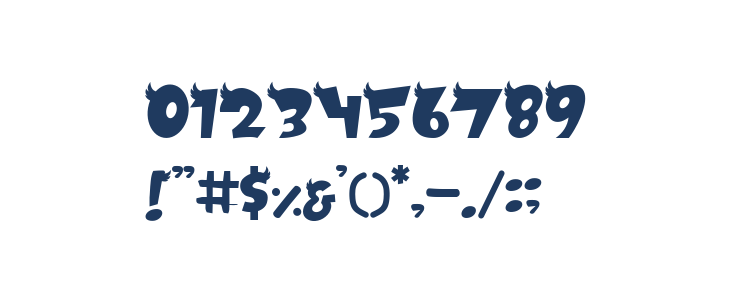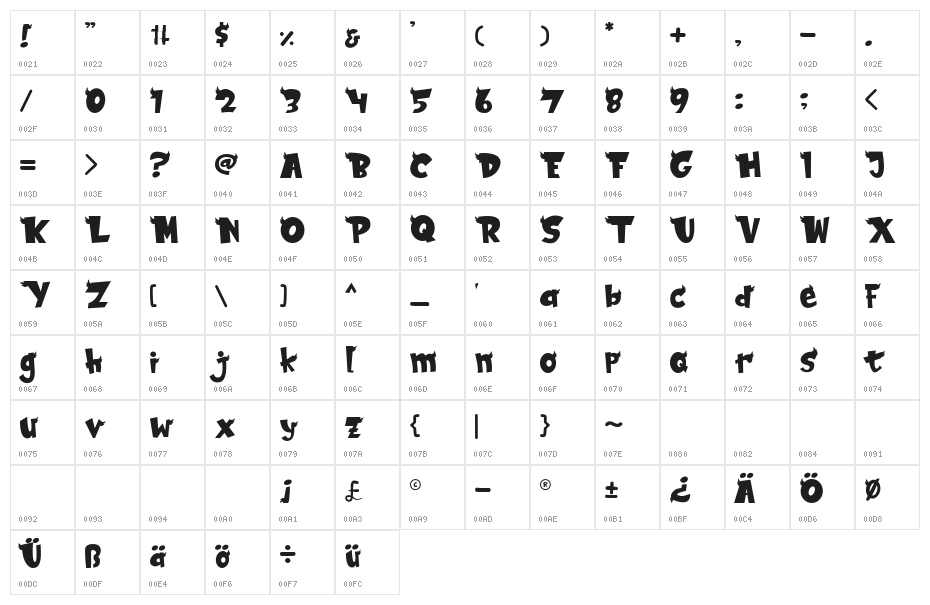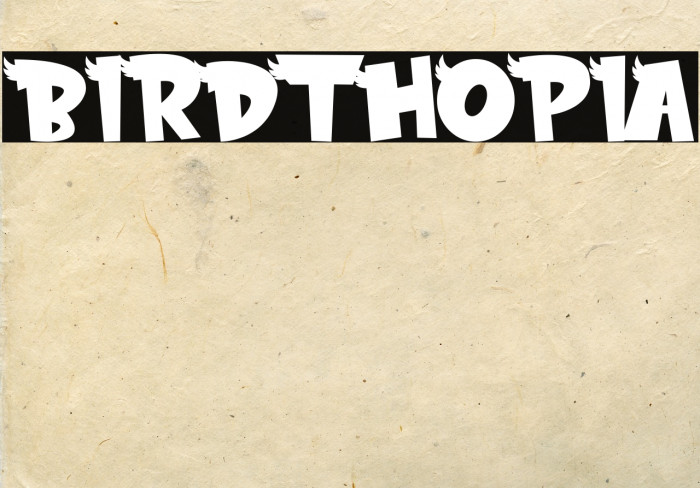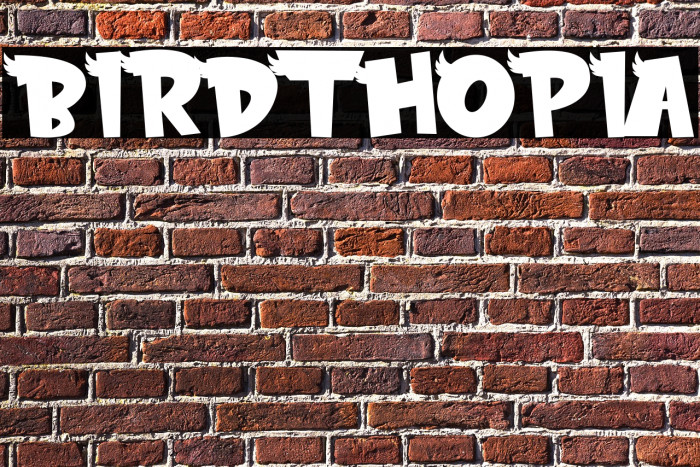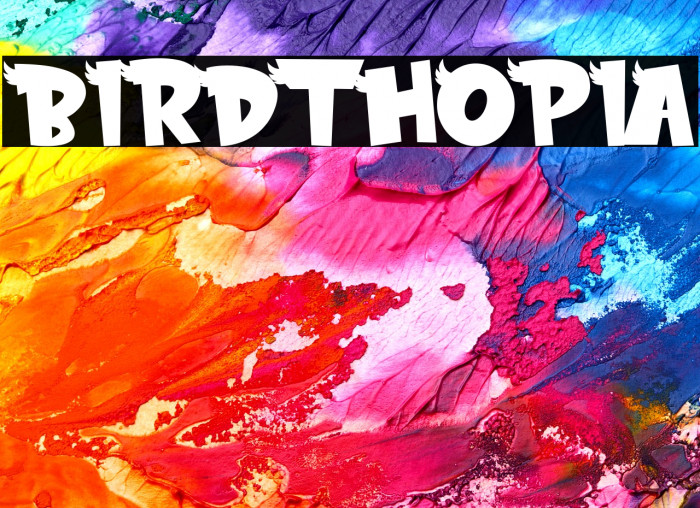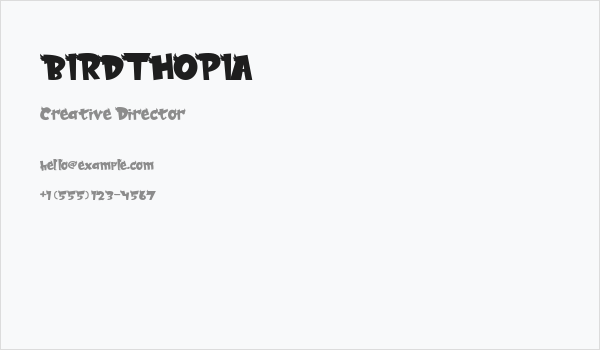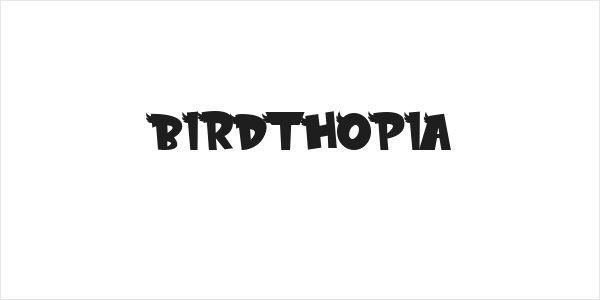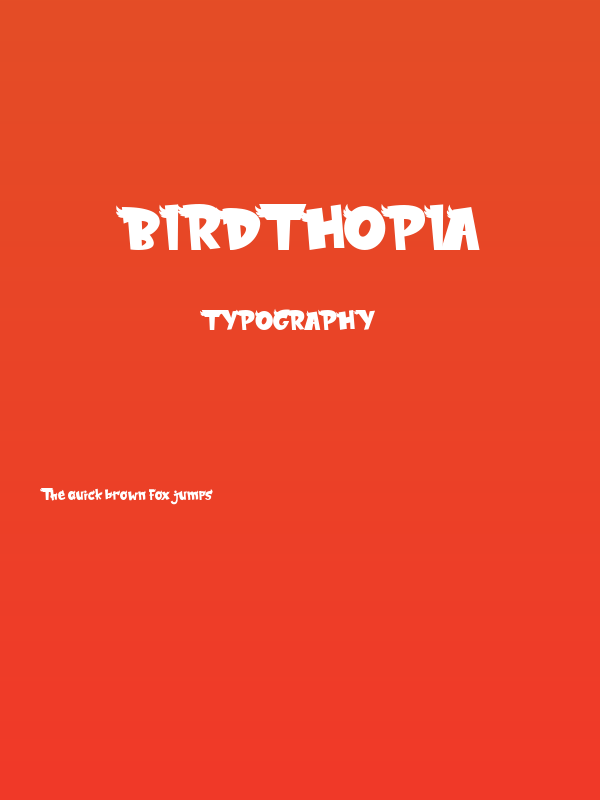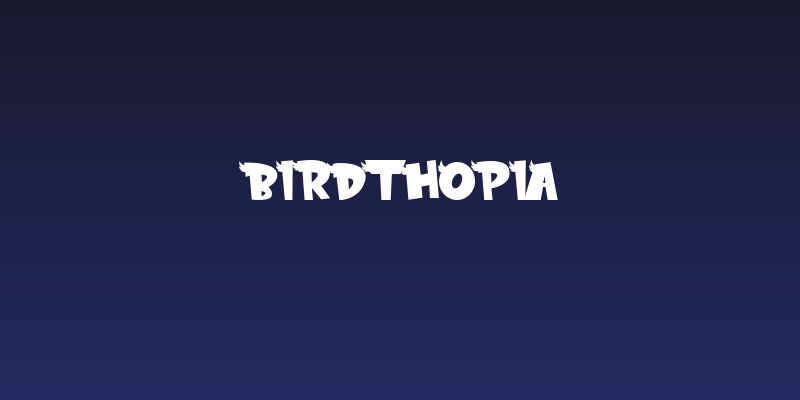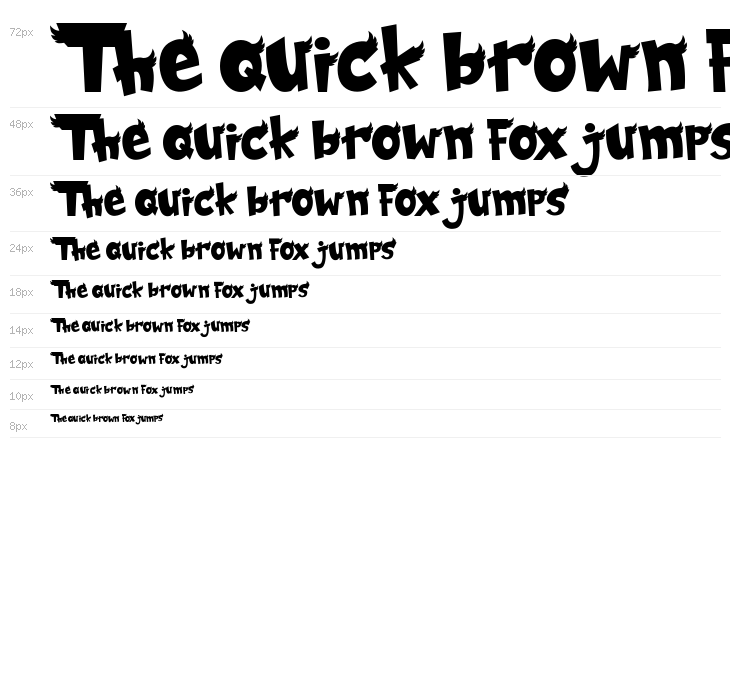
BIRDTHOPIA Font
BIRDTHOPIA Description
This font features a playful and whimsical design, characterized by bold, thick strokes and unique decorative elements resembling feathers or leaves on each character. The uppercase and lowercase letters maintain a consistent style, with exaggerated curves and angles that give the font a dynamic and lively appearance. The numbers and special characters follow the same design principles, ensuring a cohesive look across all glyphs. This font's distinctive style makes it stand out, ideal for creative and eye-catching projects.
| Proposed Projects | Ideal for children's book covers, playful branding, event posters, and creative advertising campaigns. |